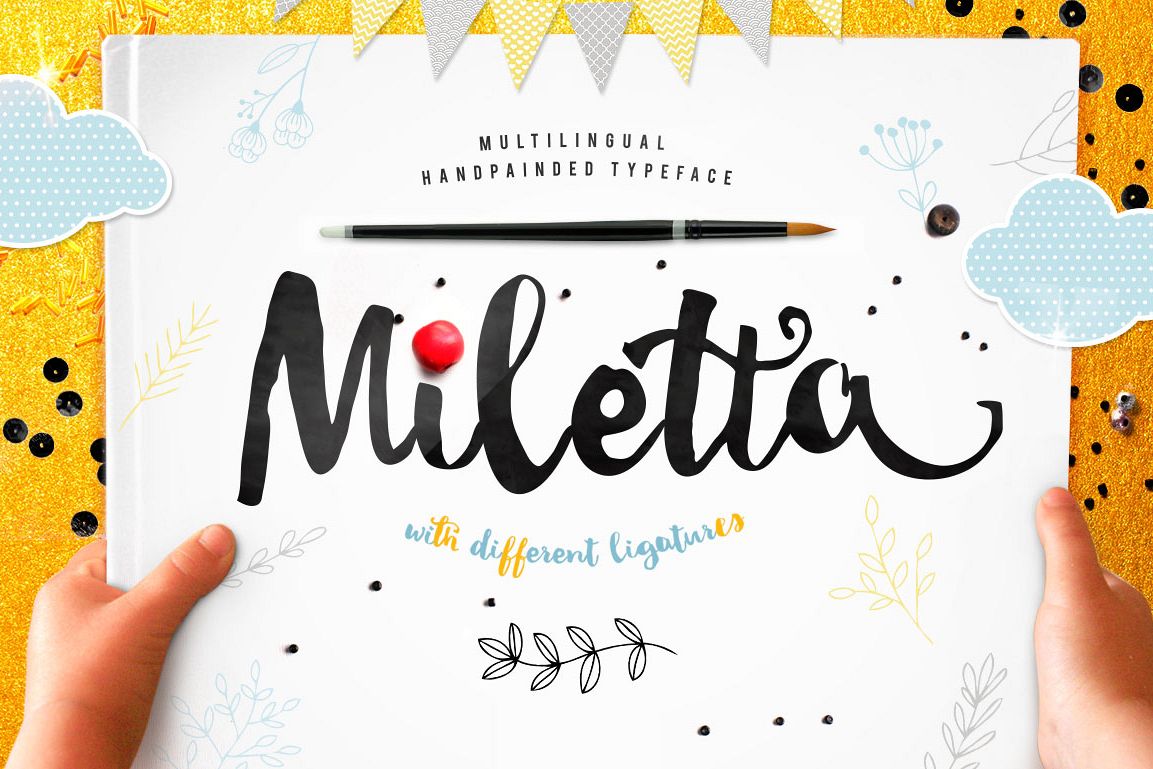
Miletta typeface with ligatures
Miletta is my new handwritten font painted with real brush and ink. Scanned with love and adapted for using as font. I did plenty of ligatures and alternates, so your creative job will be fun and lovely.Miletta consists of 407 glyphs. You will find full set of latin, Russian, Romanian and other European symbols
• logo
• prints
• quotes
• stationary
• decoration